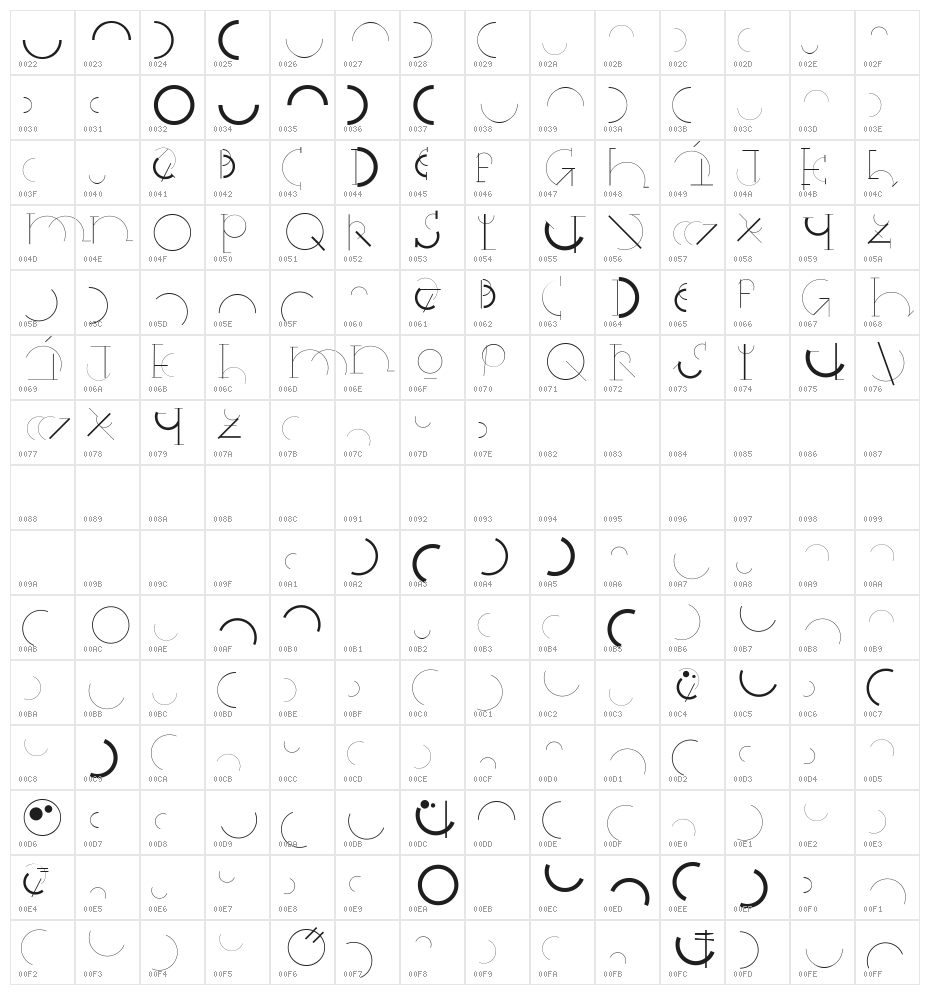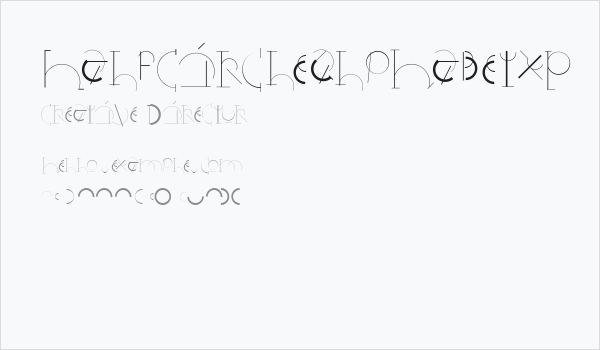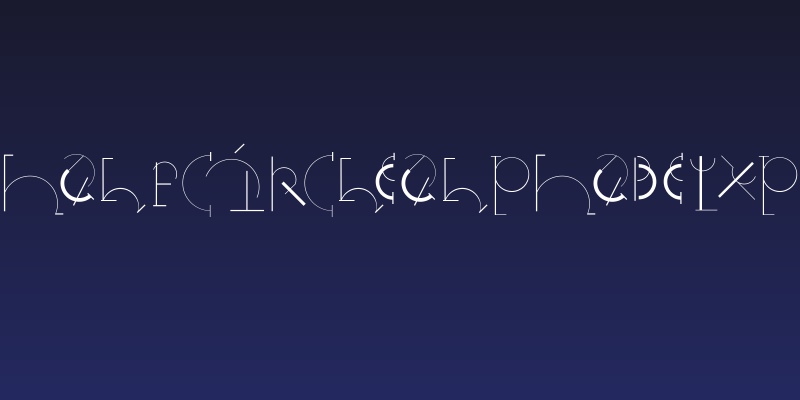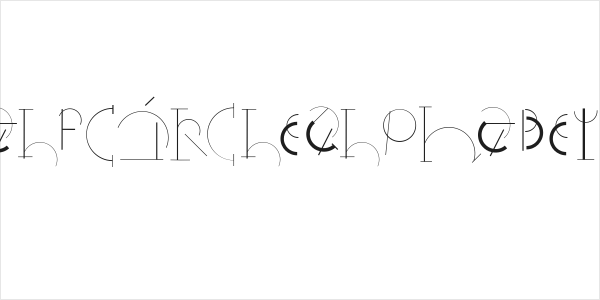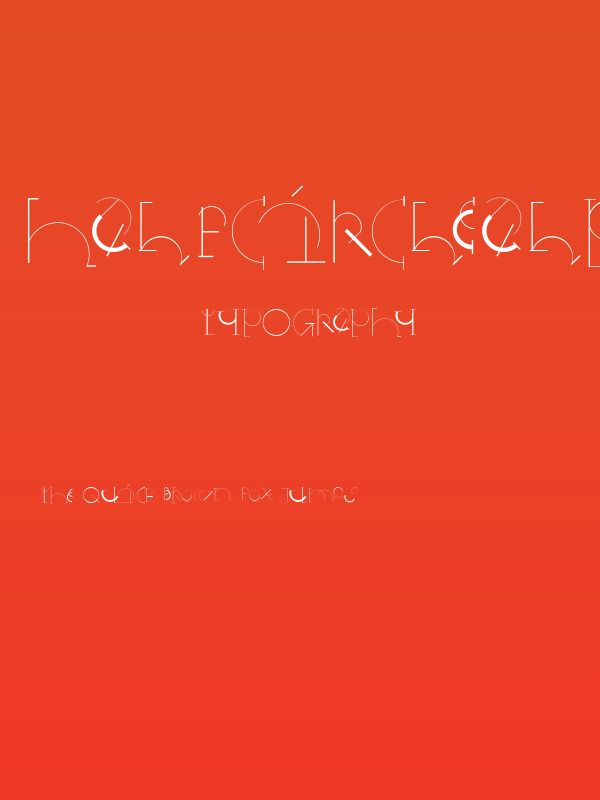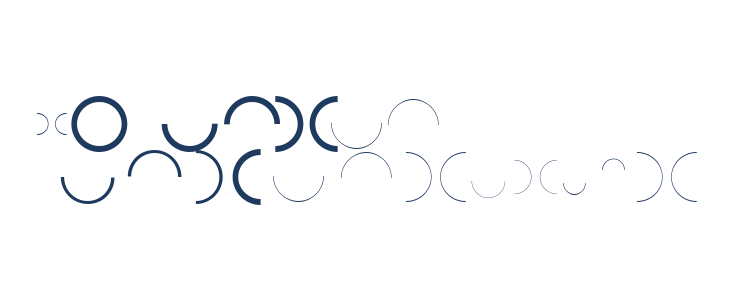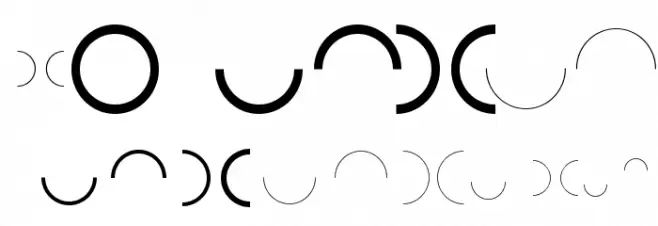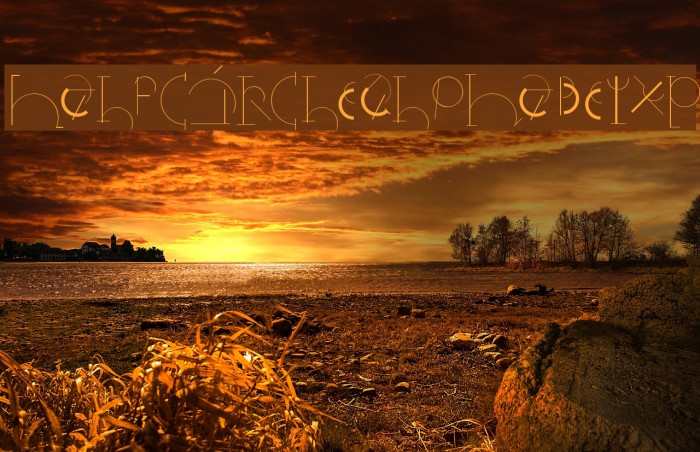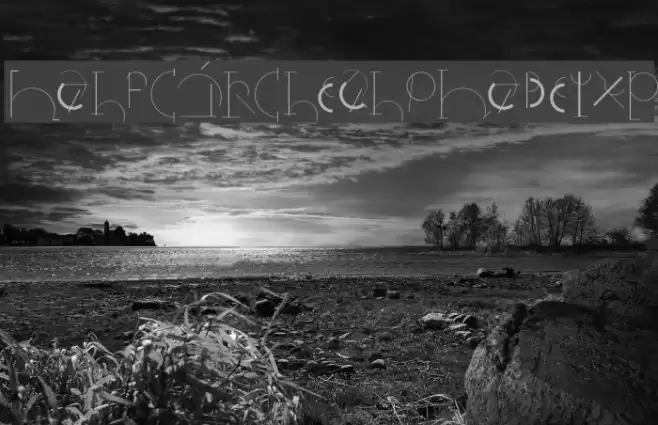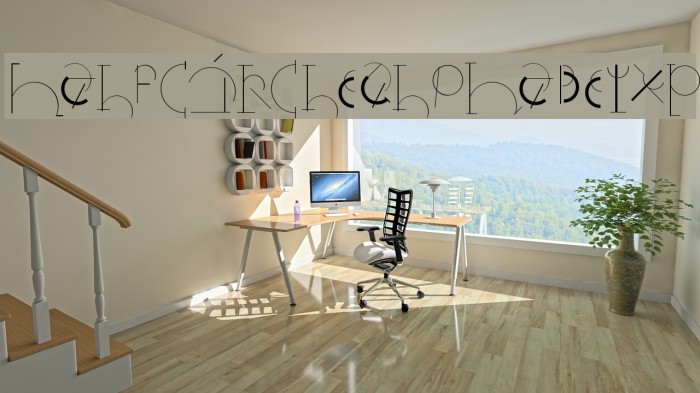
HalfCircleAlphabetXP Font
HalfCircleAlphabetXP Description
This font features a unique and modern design with characters composed of half-circle shapes and geometric lines. The uppercase and lowercase letters maintain a consistent style, emphasizing minimalism and abstraction. The numerals and special characters follow the same geometric theme, creating a cohesive visual experience. The font's design is both artistic and functional, making it suitable for creative projects that require a distinctive and avant-garde appearance.
| Use Case | Logos, Posters, Artistic designs |
| Proposed Projects | Ideal for branding, logos, posters, and contemporary art projects. |